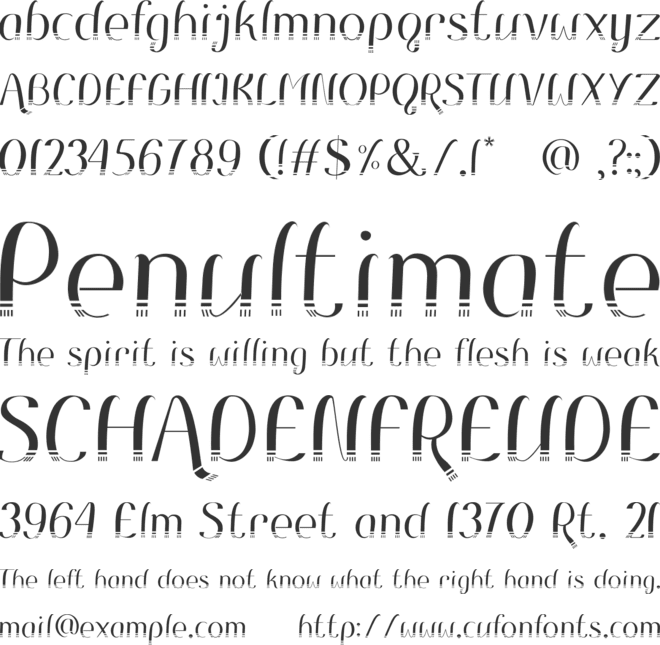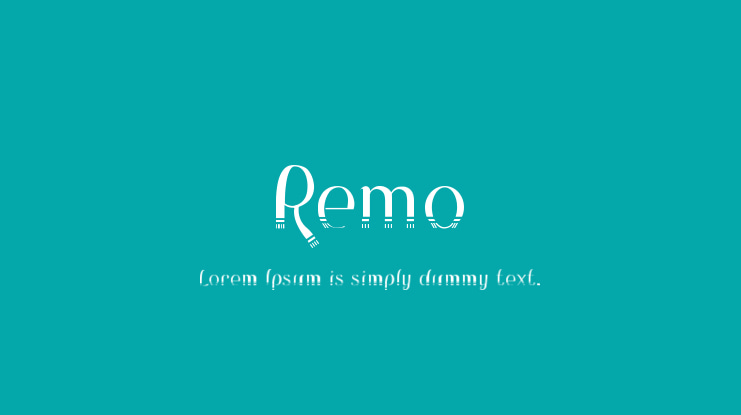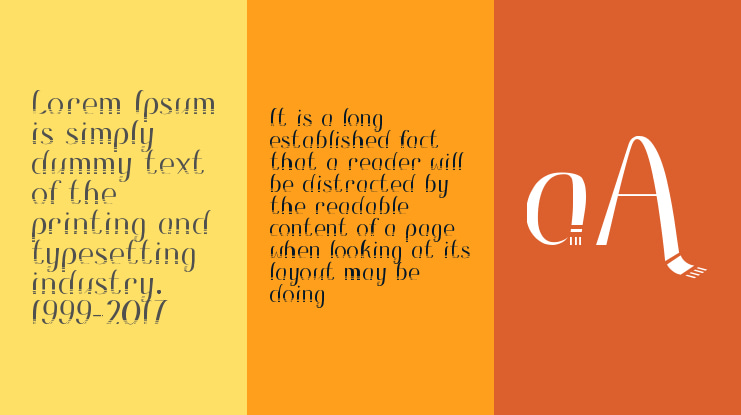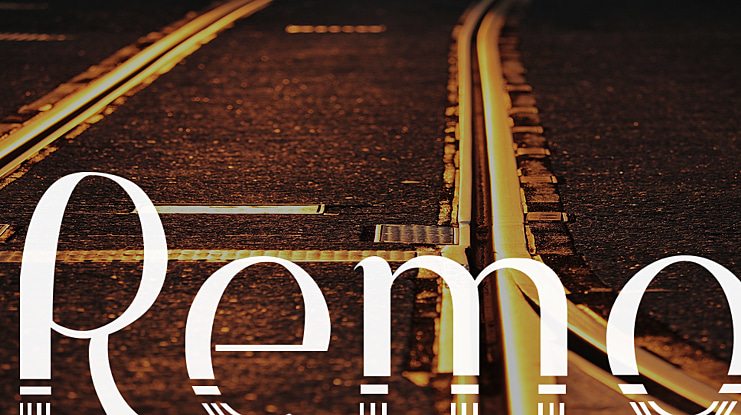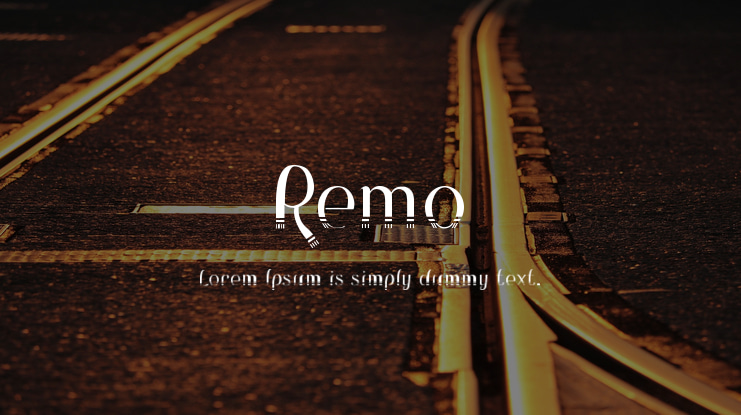
Remo Font
This font represent one of Indonesian's traditional dance called Remo. Using the basic shape to mimic the shape of the scarf used in the dance.